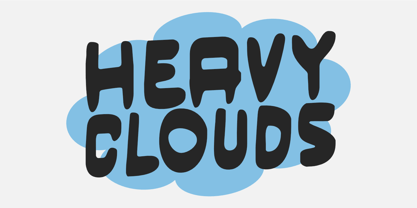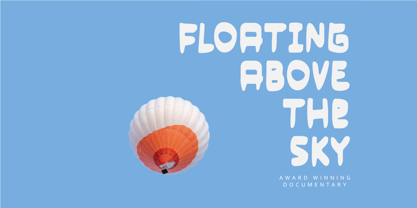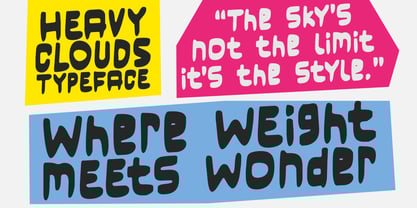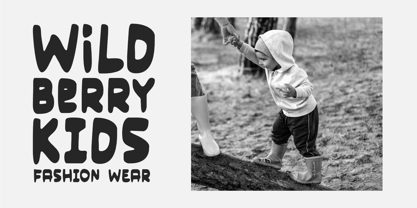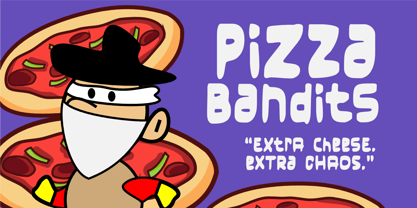
Heavy Clouds
by Olivetype
The Heavy Clouds Font Family was designed by Nurul Hidayani and published by Olivetype. Heavy Clouds contains 1 styles. More about this family
Heavy Clouds is a bold, eye-catching display font designed to make your message stand out. With its strong curves and impactful letterforms, this typeface brings power and personality to any project. Perfectly suited for logos, branding, packaging design, posters, advertising, and bold headlines, Heavy Clouds adds a modern yet playful touch that grabs attention instantly.
Whether you’re designing a movie title, music cover, product packaging, or social media graphics, Heavy Clouds delivers clarity and style in every letter. Its versatile design works across both digital and print platforms, making it a reliable choice for creative professionals and brands that want to leave a lasting impression.
Bring your designs above the rest with Heavy Clouds—a font that combines strength, creativity, and contemporary style in one unforgettable package.
Designers: Nurul Hidayani
Foundry: Olivetype